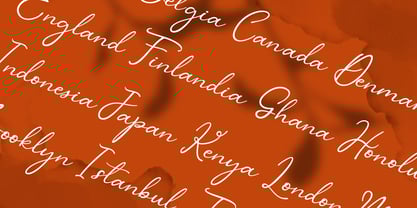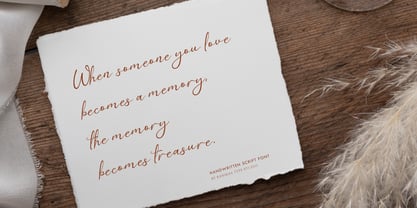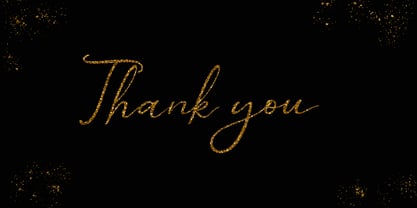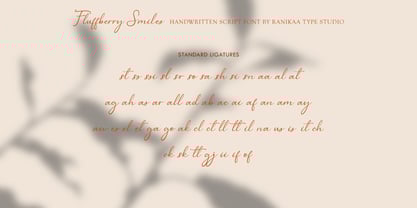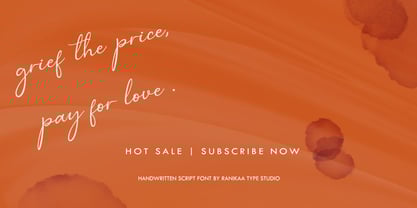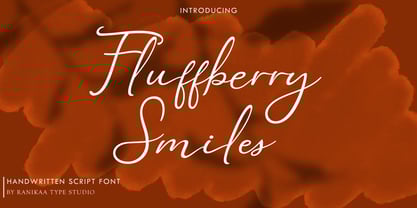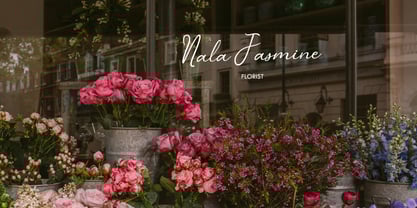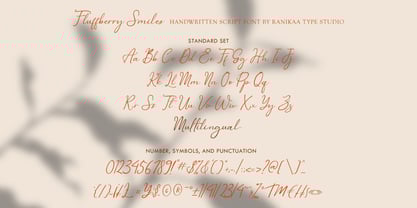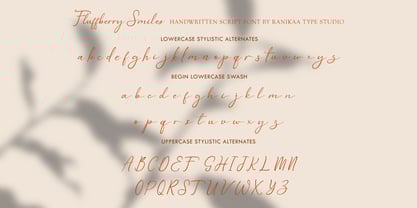
Fluffyberry Smiles
by Ranikaa Type Studio
The Fluffyberry Smiles Font Family was designed by Rani Septia and published by Ranikaa Type Studio. Fluffyberry Smiles contains 1 styles. More about this family
Fluffyberry Smiles is a whimsical and playful typeface bursting with charm and personality. Its soft, rounded letterforms and bouncy baseline create an inviting, cheerful aesthetic perfect for children's books, greeting cards, branding, and any project that calls for a touch of warmth and fun. The font features gentle curves, friendly proportions, and a hand-drawn feel, making it ideal for evoking a sense of joy and lightheartedness. Whether used for headlines, packaging, or social media graphics, Fluffyberry Smiles brings a delightful, storybook-like magic to any design.
Designers: Rani Septia
Foundry: Ranikaa Type Studio
About Ranikaa Type Studio
Ranikaa Type Studio is an independent font foundry focused on creating high-quality, functional, and creative typefaces. With a passion for typography, the studio designs fonts that are not only practical but also visually striking, perfect for a variety of digital and print projects.Each font from Ranikaa is carefully crafted, ensuring versatility, legibility, and aesthetic appeal across different platforms and sizes. As an independent studio, Ranikaa maintains full creative control, allowing them to create unique typefaces that reflect their vision. For designers and brands looking for typefaces that combine beauty, function, and flexibility, Ranikaa Type Studio offers a range of fonts that elevate any project, while always staying true to the art of typography.